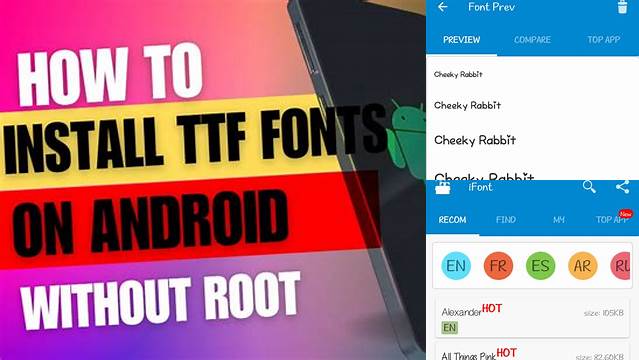
Install Fonts On Android: No Root Required!
Hey guys! Ever felt like your Android phone's fonts are just a tad...boring? Want to spice things up and give your device a fresh new look? Well, you're in luck! You don't need to be a tech wizard or root your phone to install custom fonts. In this guide, I'm going to walk you through the super simple steps on how to install fonts on Android without root. Let's get started and make your phone look awesome!
Why Change Fonts on Android?
Before we dive into the nitty-gritty, let’s quickly talk about why you might want to change fonts in the first place. Fonts play a huge role in the overall look and feel of your device. A new font can breathe life into your phone's interface, making it more personalized and enjoyable to use. Think of it as giving your phone a makeover – a fresh coat of paint, but for your screen!
Personalization and Expression
Your phone is an extension of you, right? So why not make it reflect your personality? Changing fonts is a fantastic way to express your style and make your device truly yours. Whether you're into sleek and modern fonts, playful and quirky ones, or elegant and classic styles, there's a font out there for everyone. Customizing your fonts allows you to curate a unique visual experience that resonates with you, making your phone feel more like a personal companion than just a gadget. Imagine opening your phone and being greeted by a font that perfectly matches your vibe – it’s a small change that makes a big difference.
Improved Readability
Sometimes, the default font on your Android device just doesn't cut it. Maybe the letters are too small, too thin, or simply not to your liking. Changing fonts can dramatically improve readability, making it easier and more comfortable to read text on your screen. This is especially helpful if you spend a lot of time reading articles, emails, or books on your phone. Choosing a font that is clear and easy on the eyes can reduce eye strain and make your overall user experience much more pleasant. Think about those long commutes or late-night reading sessions – the right font can be a game-changer.
Fresh Look and Feel
Let's face it, staring at the same font day in and day out can get a bit monotonous. Swapping out your font is a quick and easy way to give your phone a fresh, new look without having to change anything else. It’s like redecorating your living room without buying new furniture! A new font can make your phone feel like a brand-new device, sparking a renewed sense of excitement every time you use it. Plus, it's a fun way to keep things interesting and prevent your phone from feeling stale. Who doesn't love a little refresh now and then?
Methods to Install Fonts Without Root
Okay, so you're convinced that changing fonts is the way to go. Great! Now, let’s explore the different methods you can use to install fonts on your Android device without needing to root it. Rooting your phone can be a bit risky and might void your warranty, so we're going to stick to the safe and easy methods. There are primarily two main ways to achieve this: using font-installer apps and utilizing custom launchers. Let's break them down.
Using Font-Installer Apps
Font-installer apps are your best friends when it comes to changing fonts without root access. These apps act as intermediaries, allowing you to download and install fonts directly onto your phone. They're super user-friendly and often come with a wide variety of fonts to choose from. Font-installer apps simplify the process by handling the technical stuff behind the scenes, so you don't have to worry about complicated procedures. It’s like having a personal font concierge right on your phone!
Popular Font-Installer Apps
There are several fantastic font-installer apps available on the Google Play Store. Here are a few of the most popular ones:
- iFont: iFont is a powerhouse in the font-changing world. It supports a massive library of fonts and is compatible with many Android devices. The app is known for its ease of use and the vast selection of fonts it offers, ranging from classic styles to trendy designs. iFont also provides a preview feature, allowing you to see how a font will look on your device before you commit to installing it. This is super handy for ensuring you pick the perfect font for your needs. Plus, it supports font backups, so you can always revert to your previous font if you change your mind.
- HiFont: HiFont is another excellent choice, boasting a clean interface and a wide range of stylish fonts. The app updates its font library regularly, so you'll always have fresh options to choose from. HiFont categorizes fonts into various styles, making it easy to find what you're looking for. Whether you’re after a sleek, modern font or something more whimsical and playful, HiFont has got you covered. It also includes a DIY font feature, allowing you to create your own custom fonts – how cool is that?
- Fonts for FlipFont: If you have a Samsung device, Fonts for FlipFont is a must-try. This app is specifically designed to work with Samsung's FlipFont system, making the font installation process seamless and hassle-free. Fonts for FlipFont offers a diverse collection of fonts, all optimized for Samsung devices. The app integrates smoothly with your phone's settings, allowing you to change fonts directly from the display settings menu. This integration makes the whole process incredibly intuitive and straightforward.
So there you have it! Installing fonts on Android without root is totally achievable and a fantastic way to personalize your device. Whether you choose to use font-installer apps or custom launchers, the process is straightforward and rewarding. Remember to consider readability, match your style, and test different fonts to find the perfect fit. With a little bit of experimentation, you can transform the look and feel of your Android phone and make it truly your own. Happy font hunting, guys!